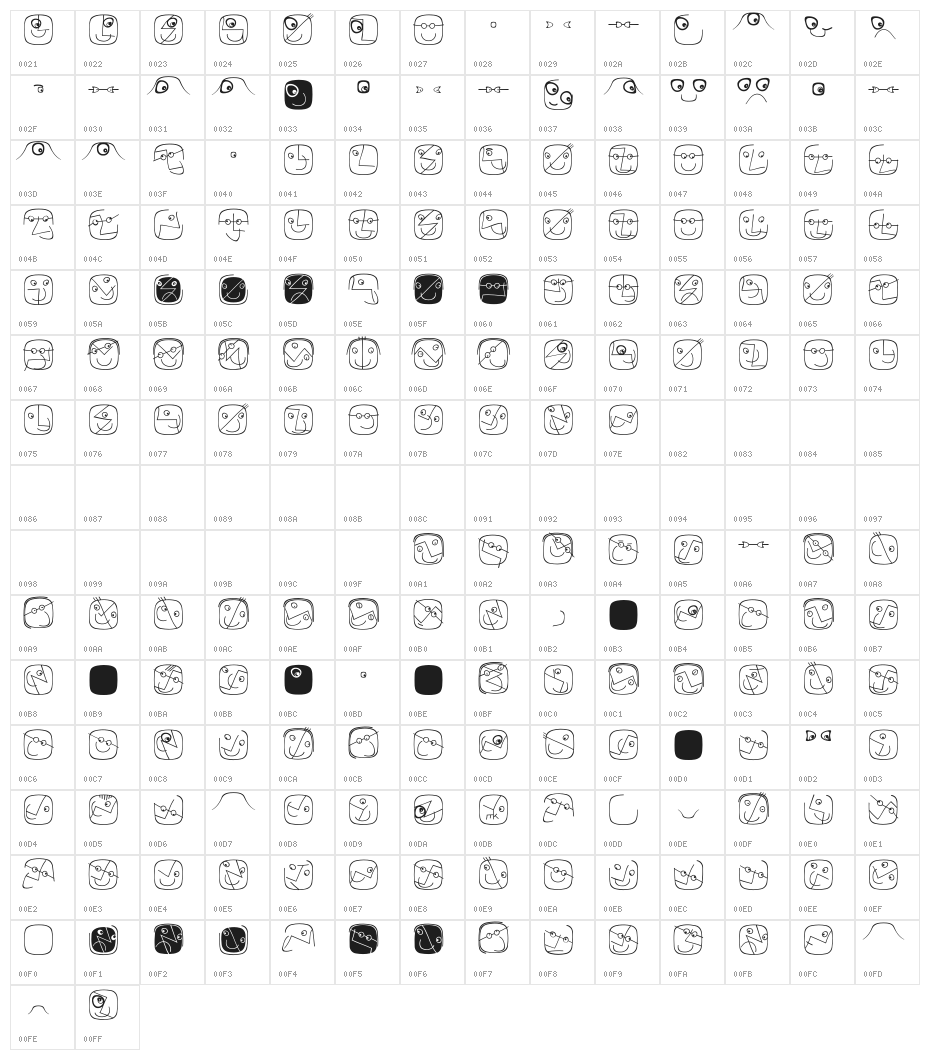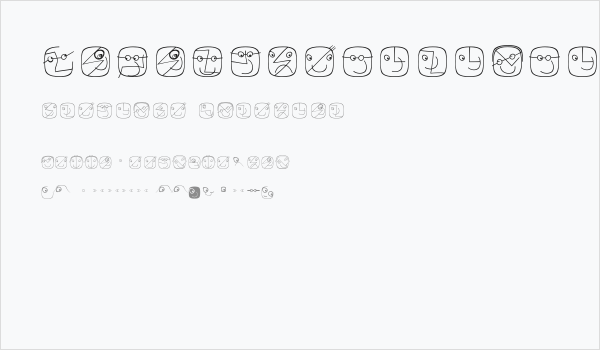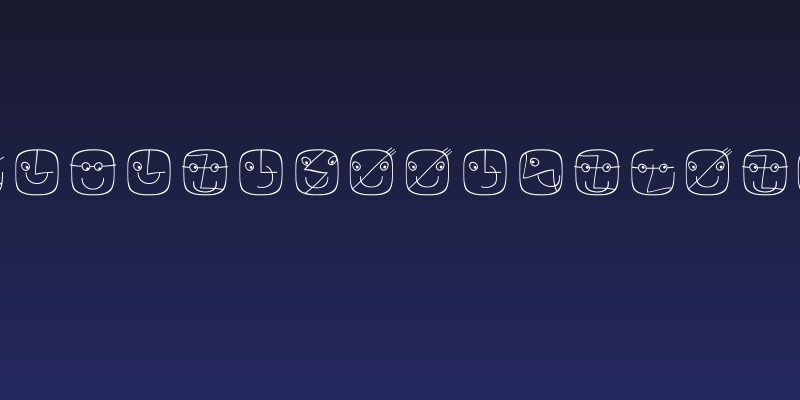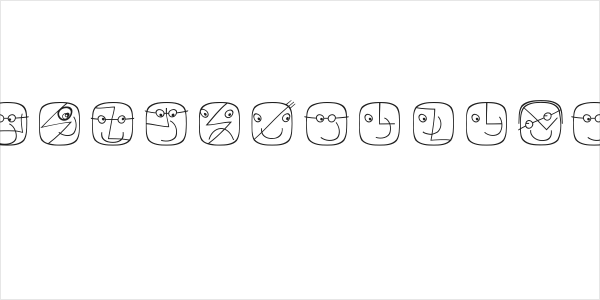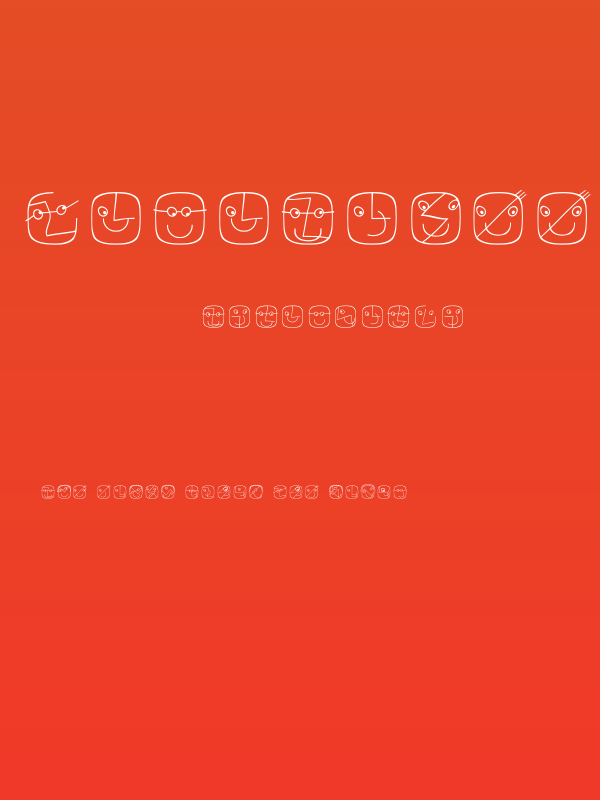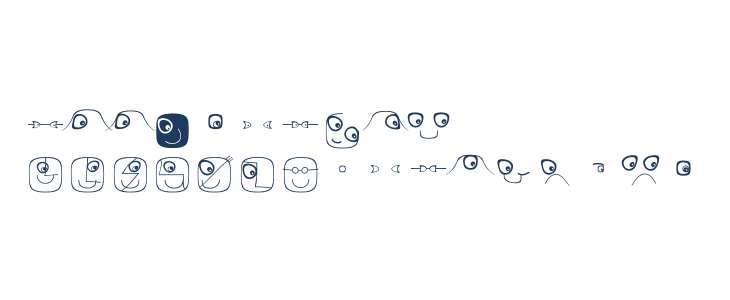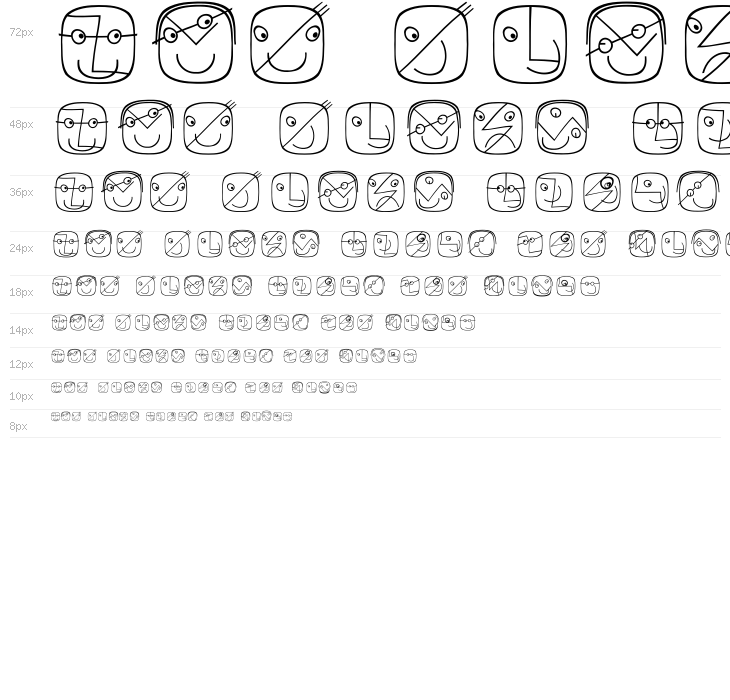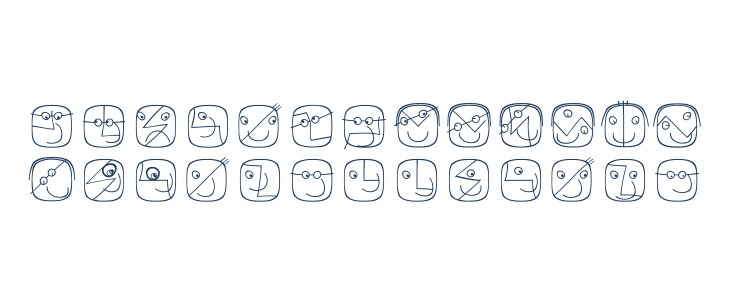
LogoFacesArtists Font
LogoFacesArtists Description
This unique typeface features characters that are creatively designed to resemble faces, each enclosed within a rounded square. The playful and artistic style incorporates facial elements like eyes and mouths into the letters and numbers, giving each character a distinct personality. The lines are smooth and continuous, creating a whimsical and approachable appearance. The font is highly decorative, making it suitable for projects that require a fun and engaging visual element. The characters are evenly spaced, maintaining a consistent and balanced look across the board.
| Use Case | Logos, Posters, Creative projects |
| Proposed Projects | Ideal for children's books, playful branding, creative posters, and artistic projects. |